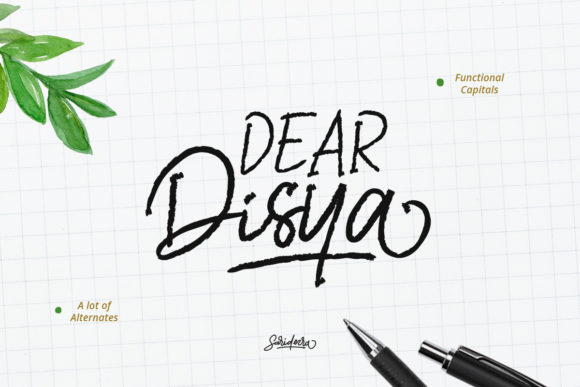
Dear Disya Font
Embark on a calligraphic journey with Dear Disya, a script font that captivates with its delicate strokes and charming personality. Its letters dance across the page, exuding an air of elegance and sophistication that will leave you breathless.
Crafted by the talented hand of saridezra, Dear Disya is a testament to the artistry of handwriting. Its curves flow with grace, and its terminals add a touch of playfulness that makes it perfect for a variety of projects. Whether you're designing wedding invitations, creating social media graphics, or simply adding a personal touch to your documents, Dear Disya is the perfect choice.
Experience the joy of writing with Dear Disya. Its smooth lines and easy-to-read characters make it a pleasure to use, whether you're writing a heartfelt letter or creating a stunning design. Let your creativity soar as you explore the endless possibilities that Dear Disya offers.
Dear Disya is more than just a font; it's an extension of your personal style. With its unique charm and versatility, it will elevate your projects to new heights. Make a statement, express your individuality, and leave a lasting impression with Dear Disya.
Say goodbye to ordinary fonts and embrace the extraordinary with Dear Disya. Its captivating beauty and timeless appeal will transform your designs into works of art. Experience the magic of Dear Disya today and unlock a world of creative possibilities.